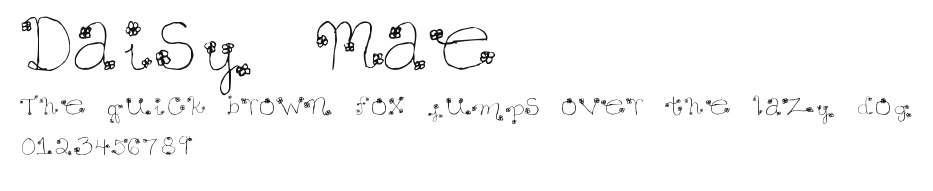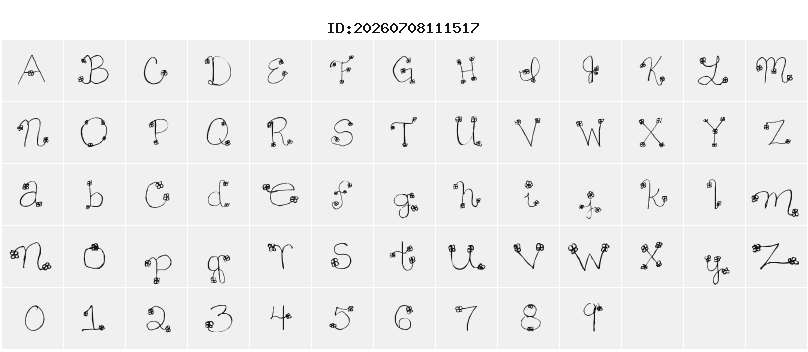
• Font Name: Daisy Mae
• Font ID: Daisy Mae's Teen Crush
• Full Font Name: Daisy Mae
• PostScript Name: DaisyMae
• Designer: Jennifer Heinicke, Fonts-A-Go-Go
• Manufacturer: Jennifer Heinicke, Fonts-A-Go-Go
• Description: Daisy Mae's Teen Crush A complete alphabet with numbers and most punctuation, suitable for love letters to the cast of "Dukes of Hazzard" and shopping lists for Burpee's Seed Catalog.